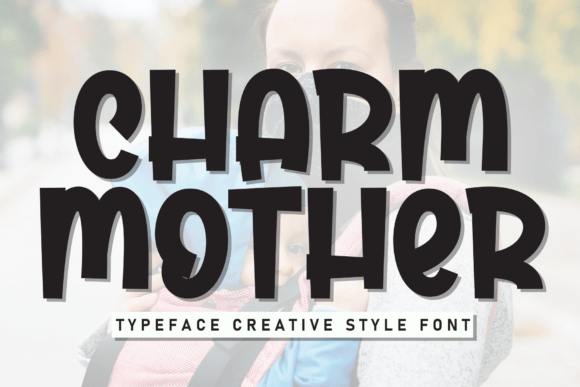
Where Words Meet Warmth: The Allure of the Charm Mother Font As a designer, have you ever stumbled upon a font that instantly transports you to a world of whimsy and wonder? For me, it’s the moment I laid eyes on the Charm Mother Font – a charming and warm handwritten display font that embodies…